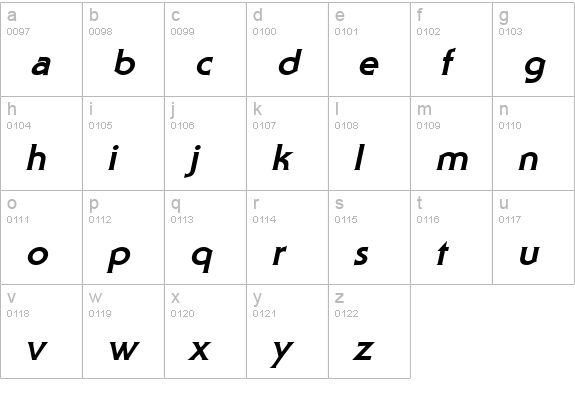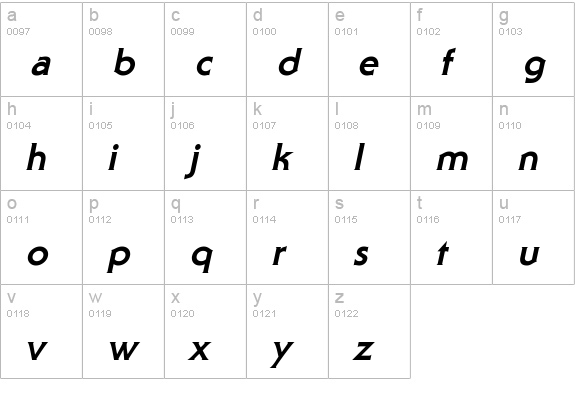
Staid Gothic ExtraBold Italic is an extra-heavy, attention-grabbing, italic variant in the Staid typeface family \xE2\x80\x94 well suited to high-impact headlines, posters, and bold branding.
Introducing Staid Gothic ExtraBold Italic, a font that exudes a timeless elegance with a touch of intrigue. With its bold and dramatic curves, this font is sure to captivate and command attention in any design project. Staid Gothic ExtraBold Italic embodies the perfect balance between sturdiness and sophistication, making it an ideal choice for headlines, logos, and branding materials that demand a strong presence. Its subtle slant adds a hint of mystery, lending an air of intrigue to any text. This font's distinctive and meticulously crafted letterforms showcase a contemporary twist on traditional Gothic typography. Each character is meticulously designed to seamlessly blend modern aesthetics with a classic vibe, resulting in a font that effortlessly captures attention and stands out from the crowd. What sets Staid Gothic ExtraBold Italic apart is not only its stunning visual appeal but also its versatility. This font effortlessly adapts to a variety of design styles, from sleek and minimalist to bold and expressive. It is a true chameleon, capable of elevating any creative project to new heights. And the best part? Staid Gothic ExtraBold Italic is freely available to download at FontsMarket.com. This means that designers, creatives, and enthusiasts alike can easily access and incorporate this exceptional font into their work, without any limitations or barriers. So, why wait? Unleash your creativity and make a statement with Staid Gothic ExtraBold Italic. Download it now, completely free, at FontsMarket.com, and let your designs speak volumes with this extraordinary typeface.